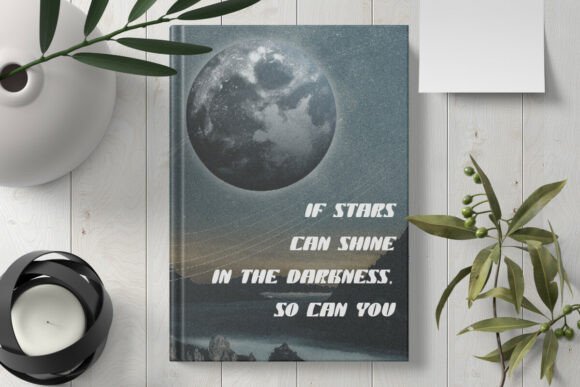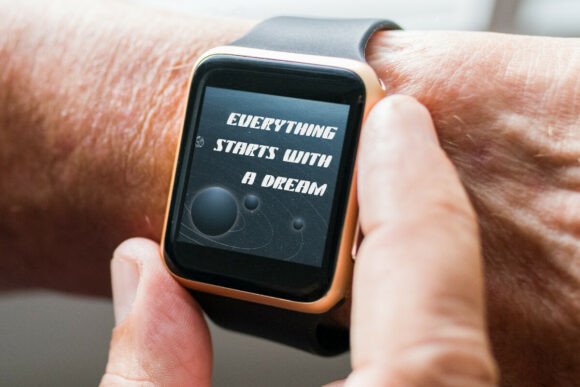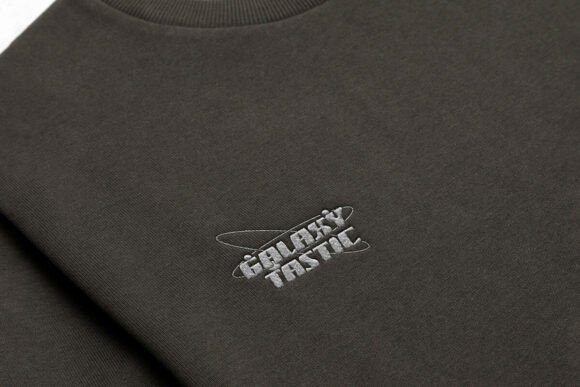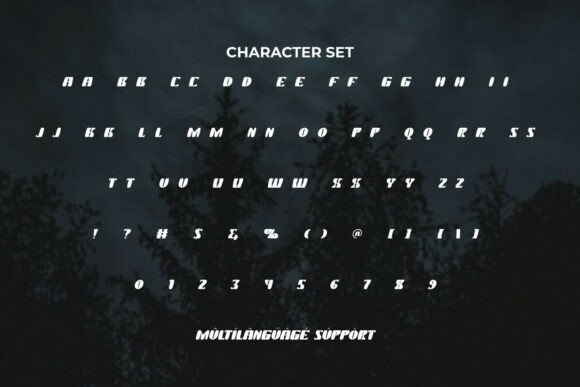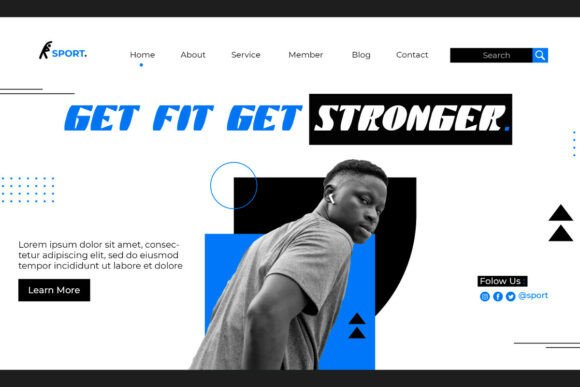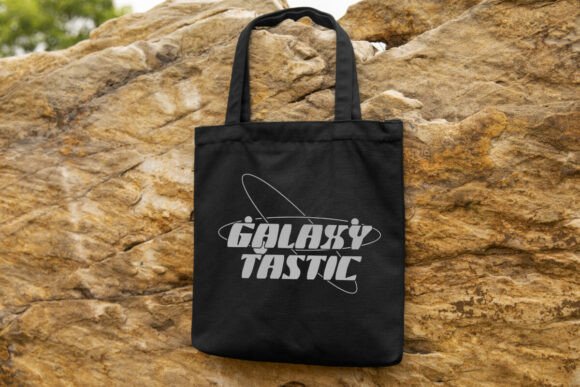
Unleash Your Creativity with Galaxy Tastic Font
Have you ever been in the middle of a design project, and suddenly, you’re stuck on finding the perfect font? I recall a recent experience where I was working on a futuristic video game poster, and my client requested a font that screamed ‘galaxy’ and ‘innovation.’ After hours of searching, I stumbled upon the Galaxy Tastic Font, and it was love at first sight! In this article, we’ll dive into the world of Galaxy Tastic, exploring its features, uses, and everything in between.
A Personal Review of Galaxy Tastic Font
- ✨ Dynamic Sporty Look: Galaxy Tastic Font boasts a modern, sporty design that adds a unique touch to any project.
- ✅ Versatility: This font works seamlessly in both large and small sizes, making it perfect for a wide range of applications.
- 🔥 High-Impact Letterforms: The font’s strong and futuristic letterforms are designed to stand out, ensuring your message is loud and clear.
While Galaxy Tastic Font is an excellent choice, there are a few minor considerations to keep in mind:
- ⚠️ Limited Serif Options: As a sans-serif font, Galaxy Tastic might not be the best fit for projects requiring traditional serif typography.
- 🤔 Glyph Limitations: While the font offers a range of glyphs and stylistic alternates, it might not have every special character you need.
The Story Behind Galaxy Tastic Font
Galaxy Tastic Font was designed with the goal of creating a modern, sporty font that captures the essence of exploration and discovery. The designer aimed to craft a font that’s not only visually striking but also versatile and easy to use. With its strong, futuristic letterforms and dynamic look, Galaxy Tastic is perfect for designers, crafters, and creative hobbyists looking to add a touch of galaxy magic to their projects.
Q: What type of projects is Galaxy Tastic Font best suited for?
A: Galaxy Tastic Font is perfect for a wide range of projects, including brochures, cards, editorials, headers, invitations, labels, logos, magazines, mugs, posters, product mockups, product packaging, quotes, screen print, titles, websites, and more.
Q: Does Galaxy Tastic Font support OpenType features?
A: Yes, Galaxy Tastic Font supports OpenType features, including ligatures, stylistic alternates, and glyphs.